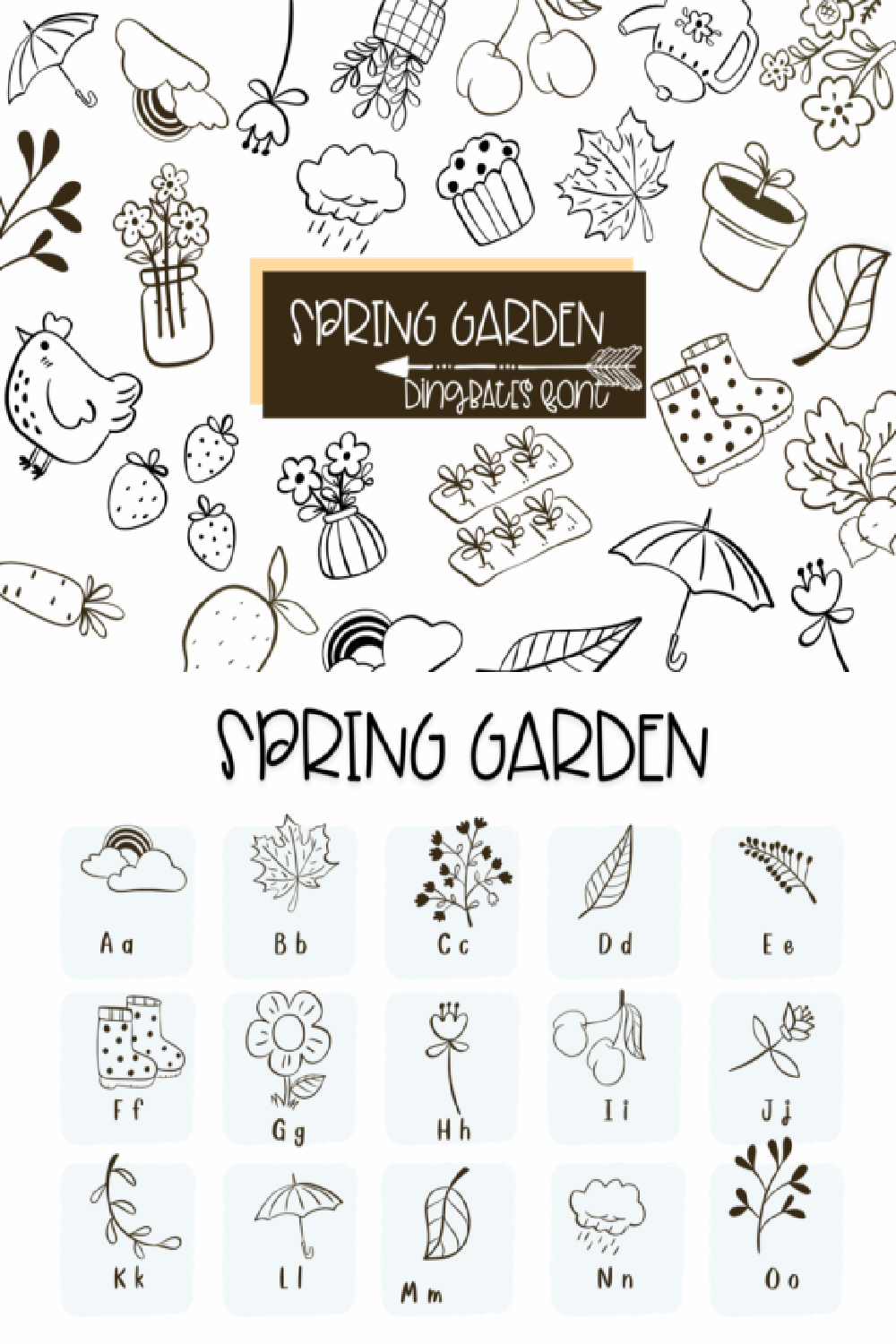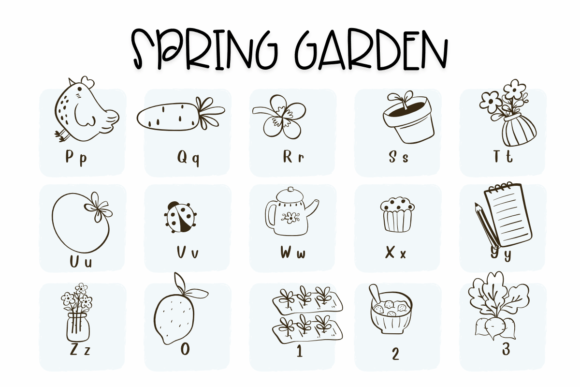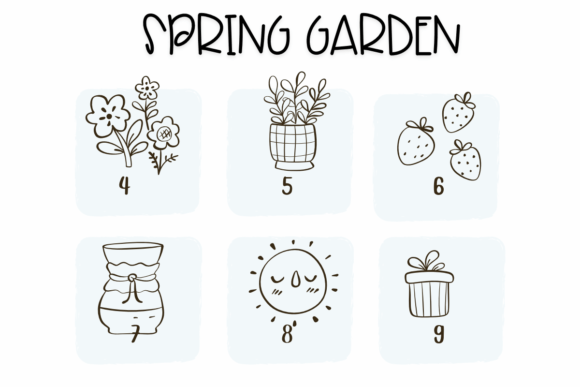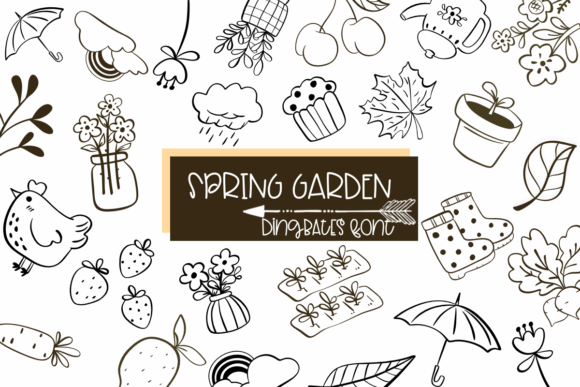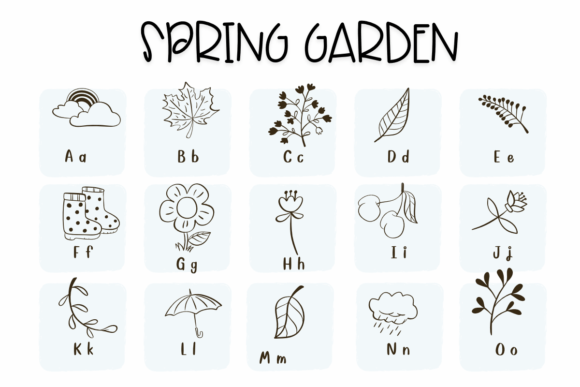
Spring Garden Font: A Cute & Playful Dingbat for Cricut Crafts
About the Spring Garden Font
Make a bold statement with Spring Garden Font, a powerful and memorable font. Spring Garden is a special type of font where each letter is shaped like something you might find in a garden, like flowers, watering cans, or even insects. Instead of just regular letters, these are little pictures that make up the words you write, making it fun and pretty to use for projects about gardening or nature.
Spring Garden Font Usage Examples